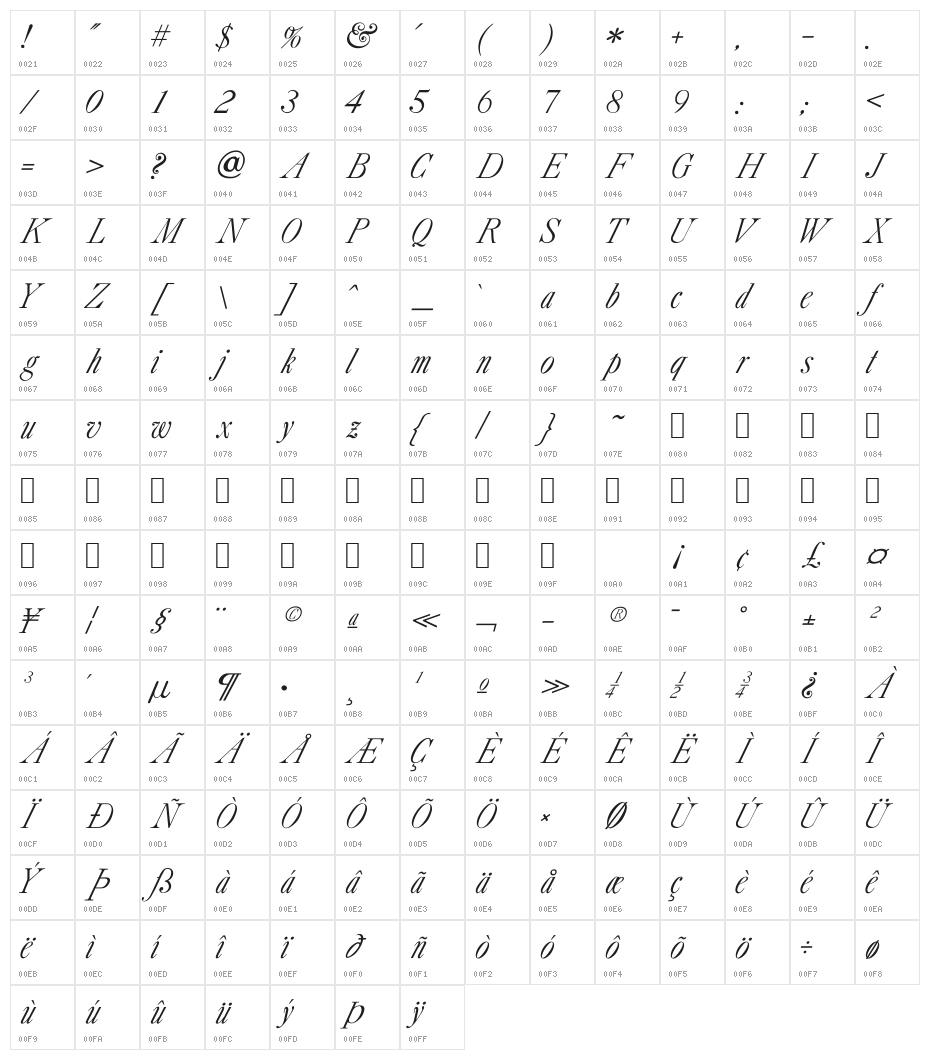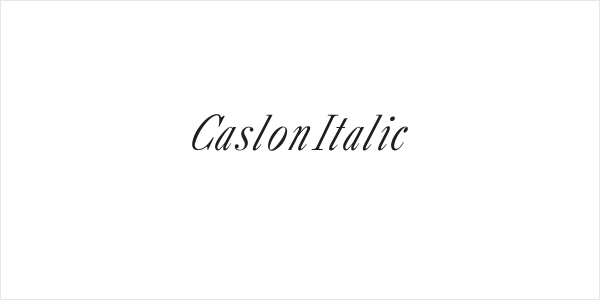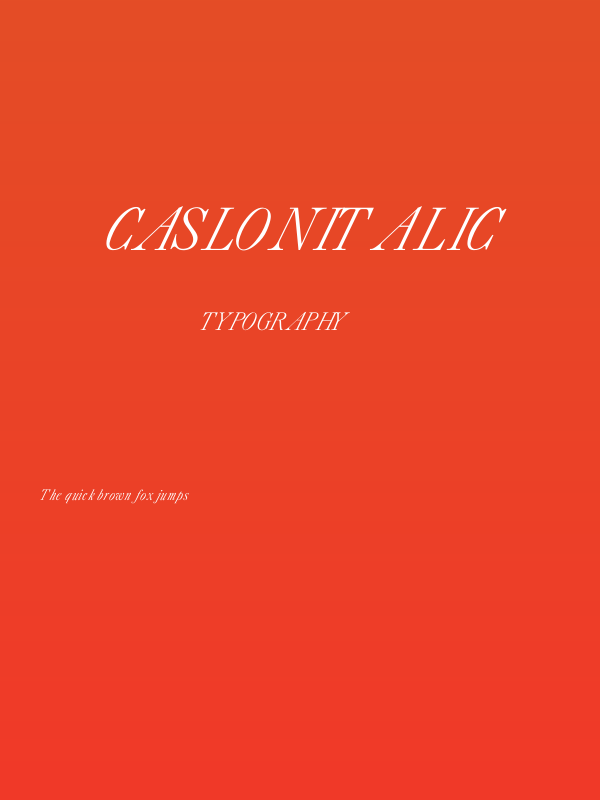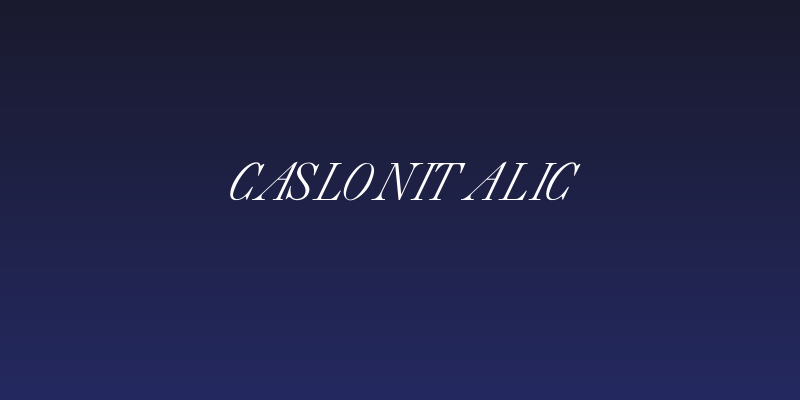
CaslonItalic Font
CaslonItalic Description
This elegant serif font features a classic italic style with smooth, flowing lines and a refined appearance. The characters exhibit a slight slant to the right, enhancing the sense of motion and grace. The uppercase letters are tall and stately, while the lowercase letters maintain a consistent rhythm and balance. The numerals are clear and well-proportioned, complementing the overall aesthetic. Special characters are thoughtfully designed to match the sophisticated style, making this font suitable for formal and traditional applications.
| Proposed Projects | Ideal for wedding invitations, formal documents, book covers, and elegant branding. |